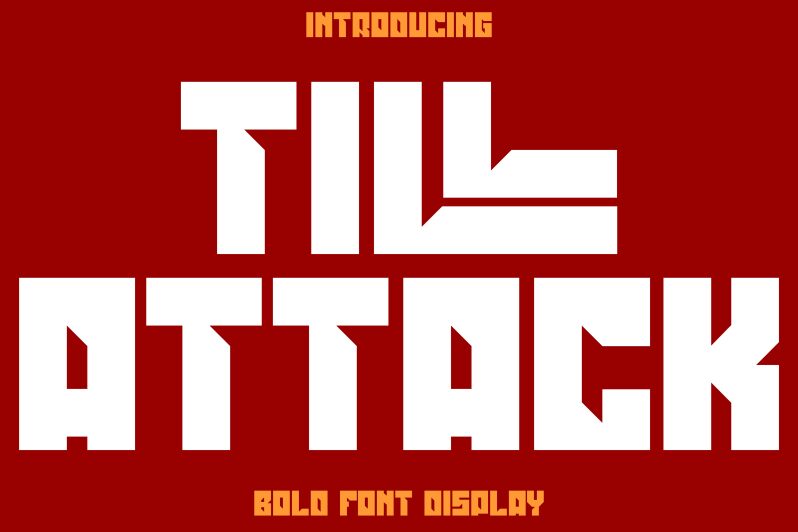
TILL ATTACK
Till Attack font by Arif Purnomo is a bold techno display typeface. It features structured and geometric characters each varied in height. The letters have vertical extensions that give them a tall and futuristic appearance and which allows them to stand out in any work that uses this free font.